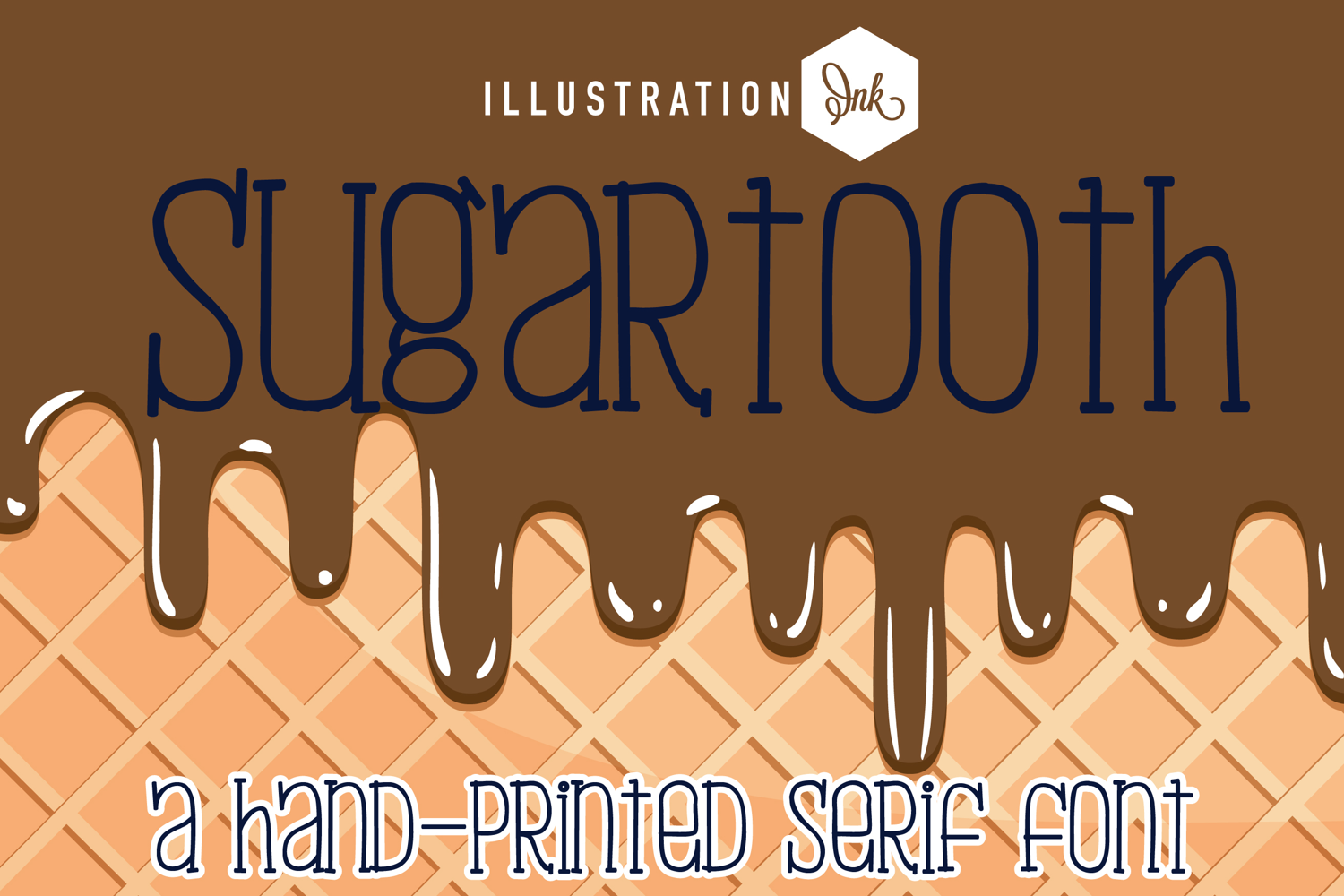
ZP Sugartooth
This hand-crafted font is a crafty serif with very squat lettering and no descenders.
• The letters are not perfectly uniform in size or shape.
• There may be slight variations in the spacing between letters and words.
• The font may have a "wiggly" or "squiggly" appearance.
• The font may be difficult to read at small sizes.